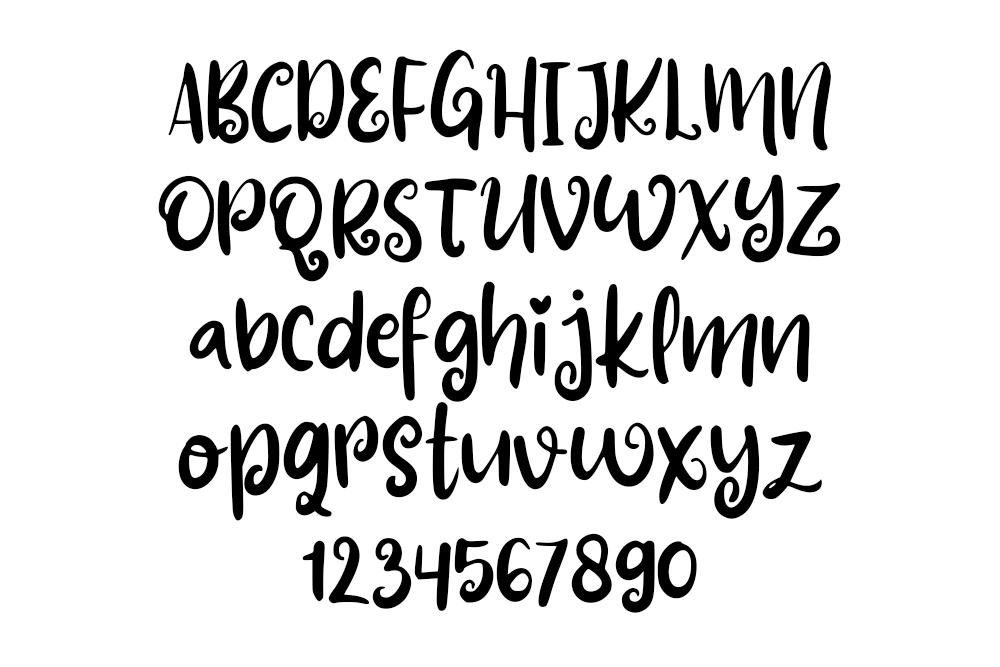
Pixie Ring Font
Pixie Ring – Playful Sans Serif with Dingbats
Pixie Ring is a charming sans serif font with a fun, handmade feel. It includes cute dingbat alternates that bring creativity and personality to any design. The simple shapes and playful vibe make it a great choice for crafts, cards, kids’ projects, and more.
Use Pixie Ring to brighten up your designs and make them feel friendly and unique. It’s easy to use and perfect for adding a cheerful tone to your text.
Pixie Ring Font Preview